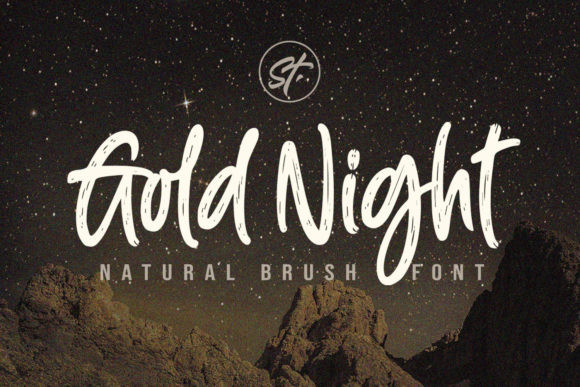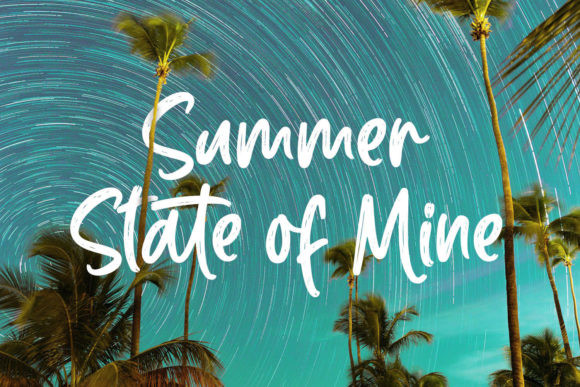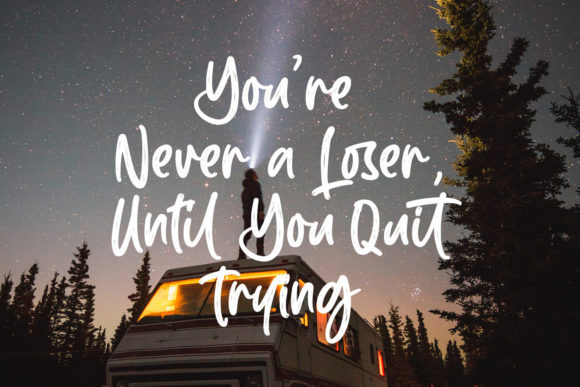
Gold Night Font
Gold Night is a cool brushed display font. Whatever the topic, this font will be a wonderful asset to your font library, as it has the potential to enhance any creation.